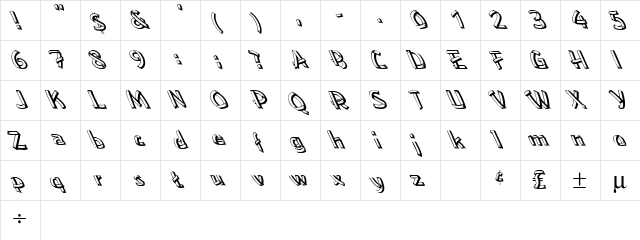
Low Ea Lefty Regular
Design Context for Low Ea Lefty Typeface
Low Ea Lefty is a composed and adaptable typeface that performs quietly and consistently across a wide range of design contexts.